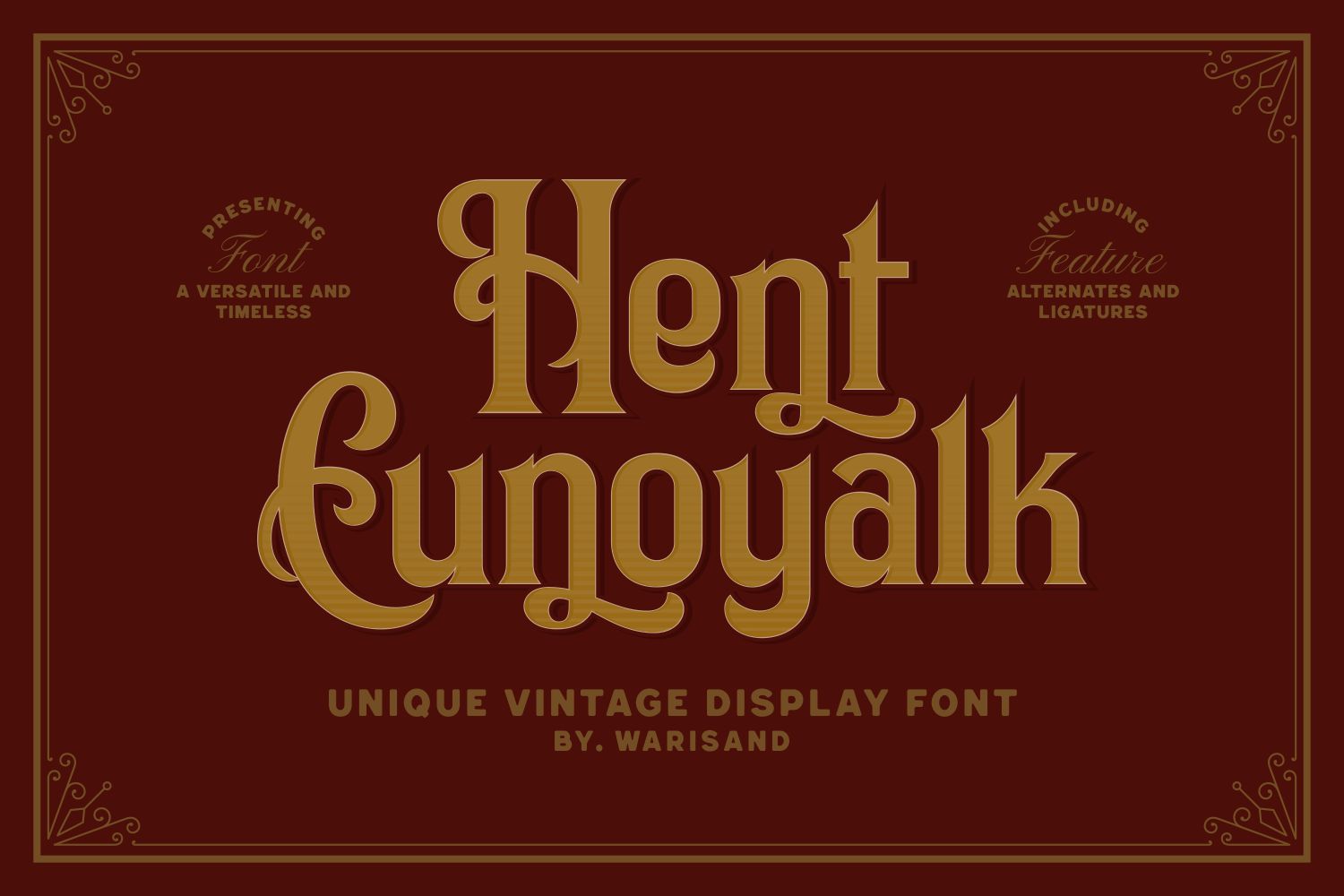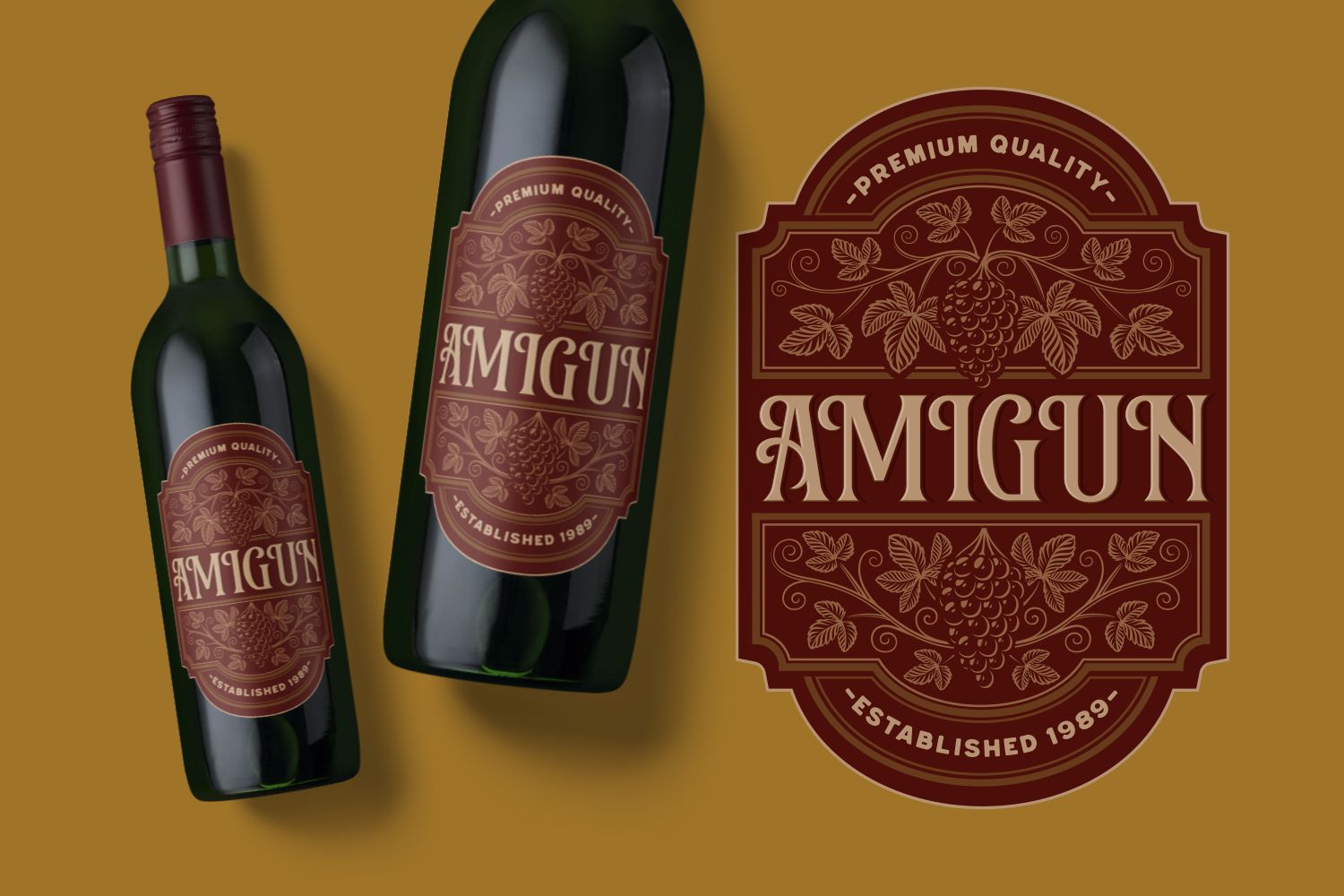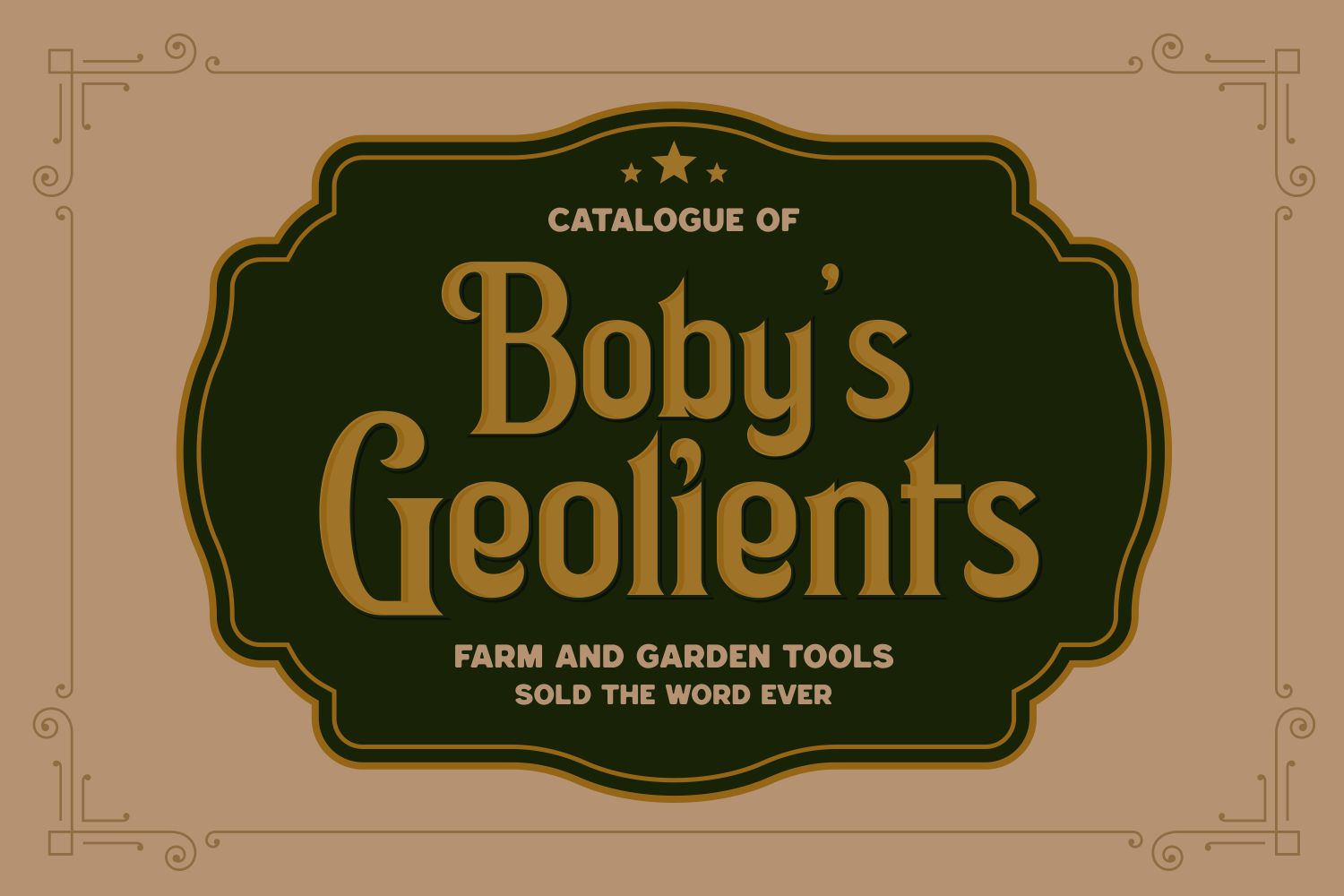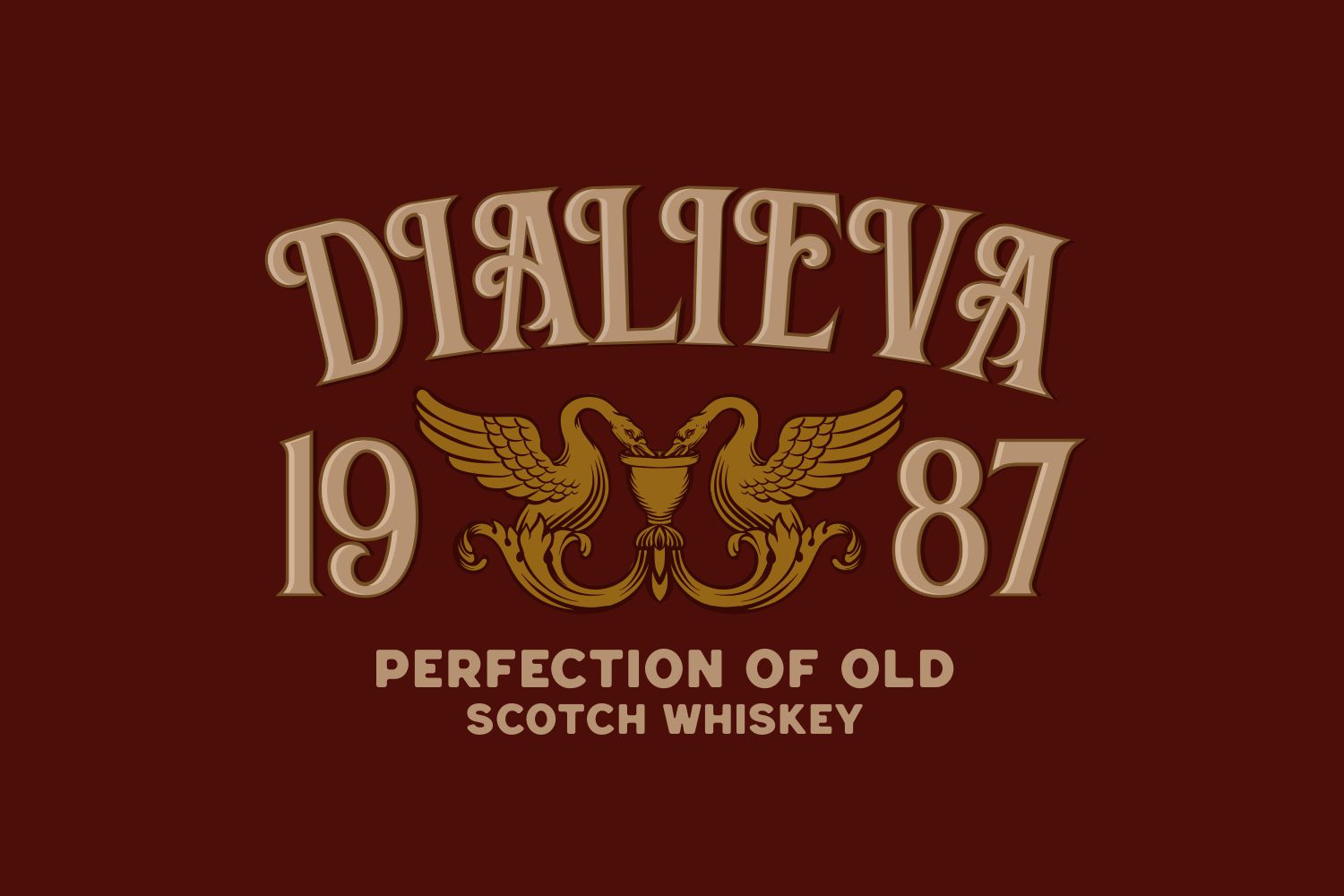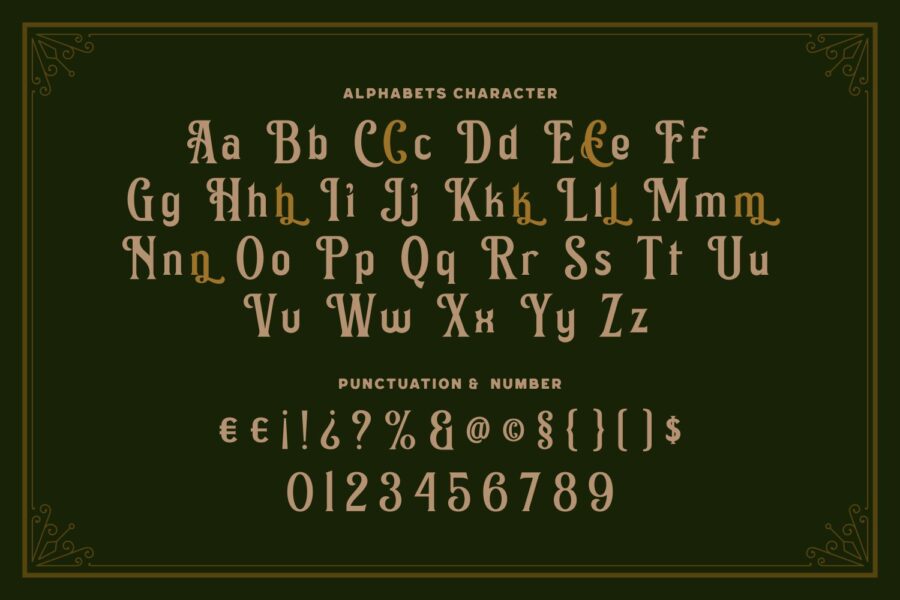
Hent Eunoyalk is a unique vintage display font with a bold personality and timeless character. It features elegant letterforms with stylized swashes, classic ligatures, and a strong vertical structure that makes it perfect for high-impact headlines and branding. With both uppercase and lowercase support, punctuation, numerals, and multilingual accents, this font offers flexibility while retaining a vintage charm.
Whether you’re designing labels for wine, antique signage, or premium packaging, Hent Eunoyalk adds a touch of sophistication and heritage to your work. Its decorative flair and strong legibility make it ideal for logos, retro advertisements, and classic-themed merchandise with a luxurious, old-world feel.
Hent Eunoyalk